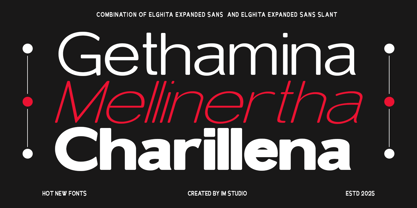
Elghita
by IM Studio
The Elghita Font Family was designed by Ikhsan Maulana and published by IM Studio. Elghita contains 102 styles and family package options.
Elghita is a variable typeface family that harmoniously combines serif and sans-serif styles, creating a perfect balance between tradition and modernity. Designed around three axes—weight, width, and slant—Elghita gives designers a great moment to precisely customize its look.
Its serif style exudes elegance and refinement, making it an ideal choice for editorial design, luxury branding, and formal communications. Meanwhile, the sans-serif variant offers a clean and modern aesthetic, perfect for corporate identities, digital interfaces, and contemporary layouts.
With its expansive design space, Elghita adapts easily to a variety of applications, ensuring readability and visual harmony across print and digital platforms. Used separately or together, the two styles create a cohesive and versatile typographic system, allowing for limitless creative exploration. Its fine details and dynamic range make Elghita an essential tool for designers who prioritize both aesthetic and functional beauty in their typography.
Font Features:
Cyrillic
569 Glyphs
3 Subfamilies: Bold, Italic, Wide
9 Thicknesses: Thin, Very Light, Light, Regular, Medium, Semi Bold, Bold, Very Bold, Black
Complete Collection: 102 File Font + 12 Variable Sans Serif Fonts
The W1G character set supports almost all popular western, eastern, and central European languages/writing systems based on the Latin alphabet and also some based on the Cyrillic and Greek alphabets.